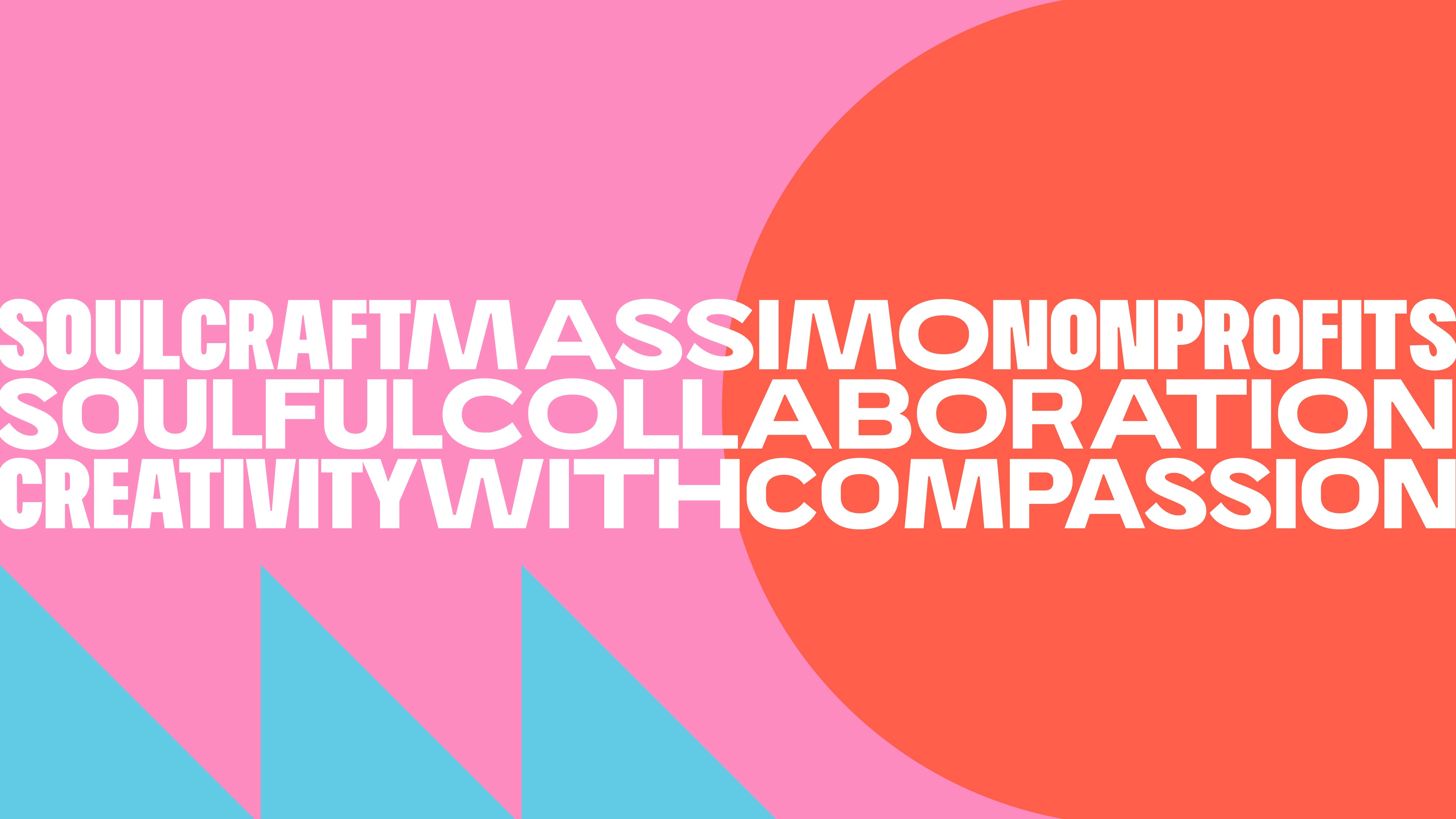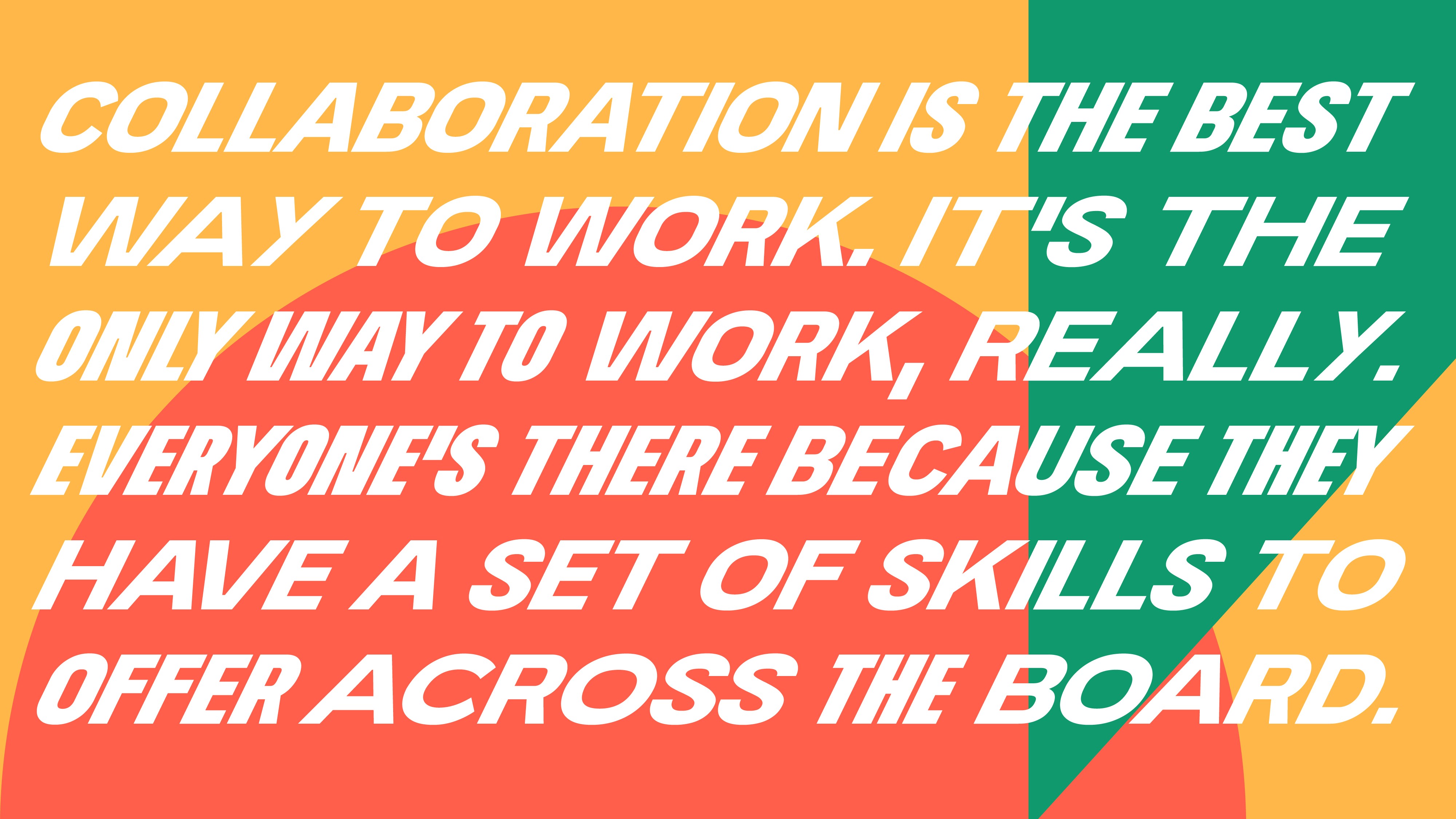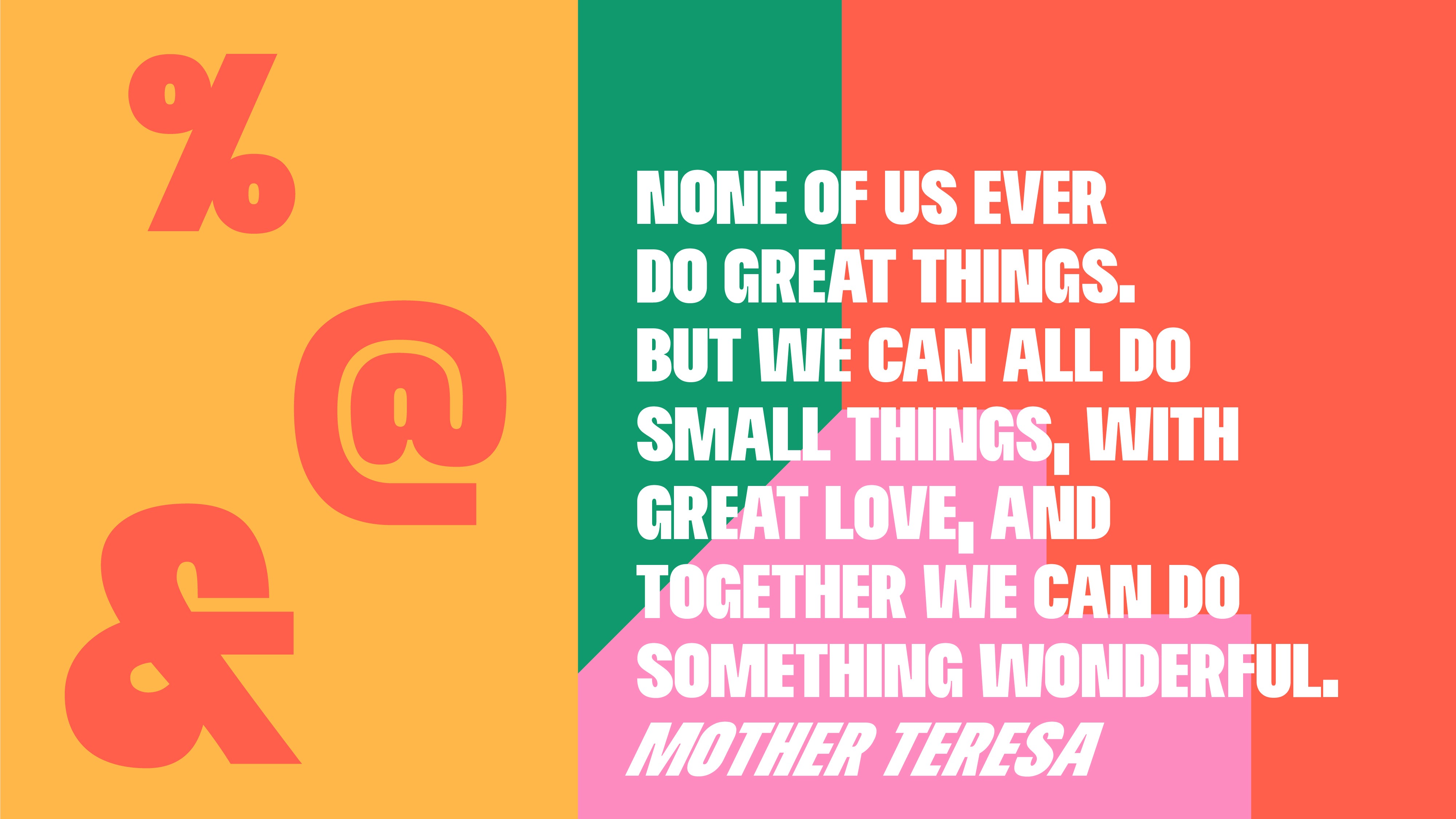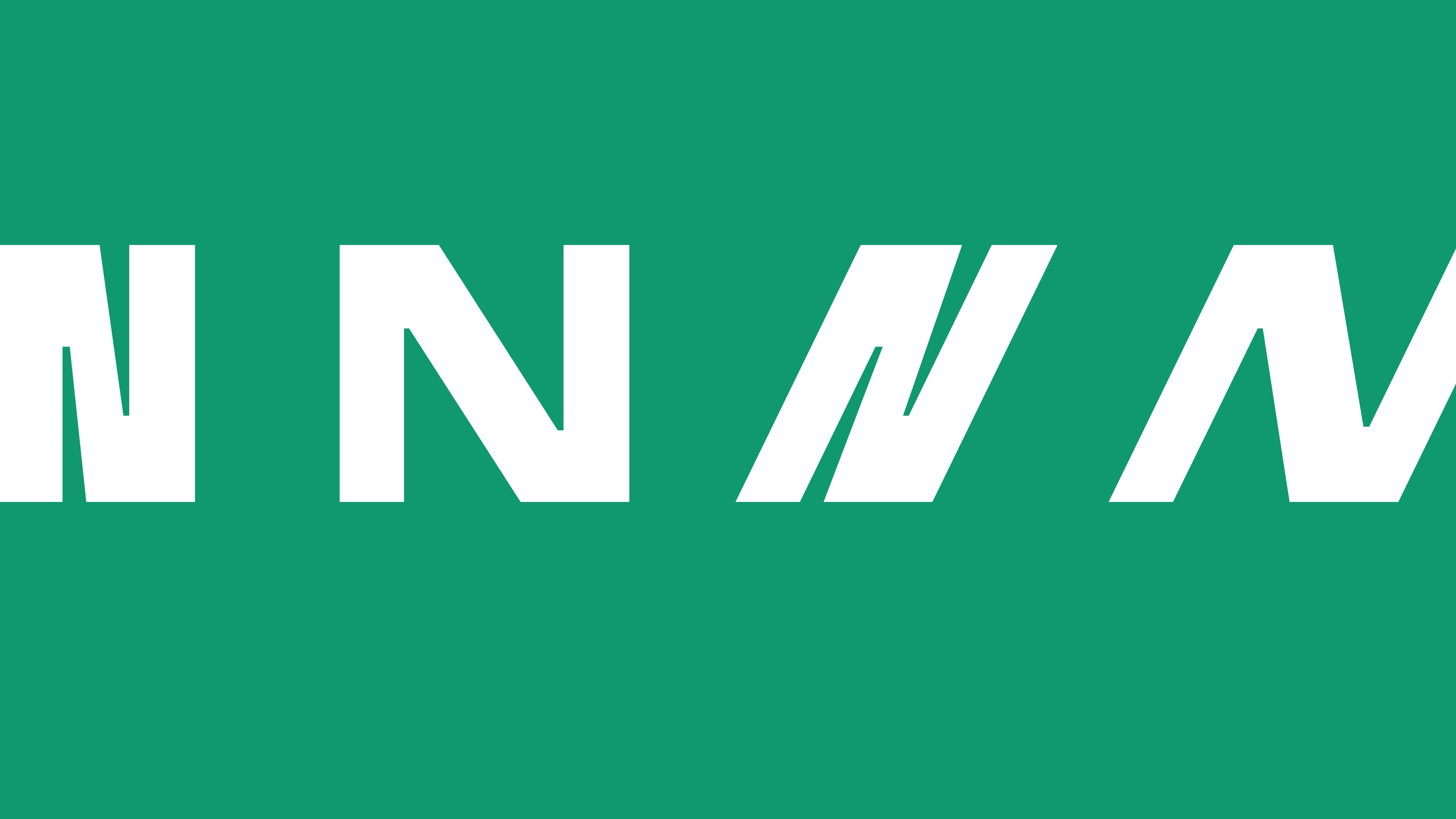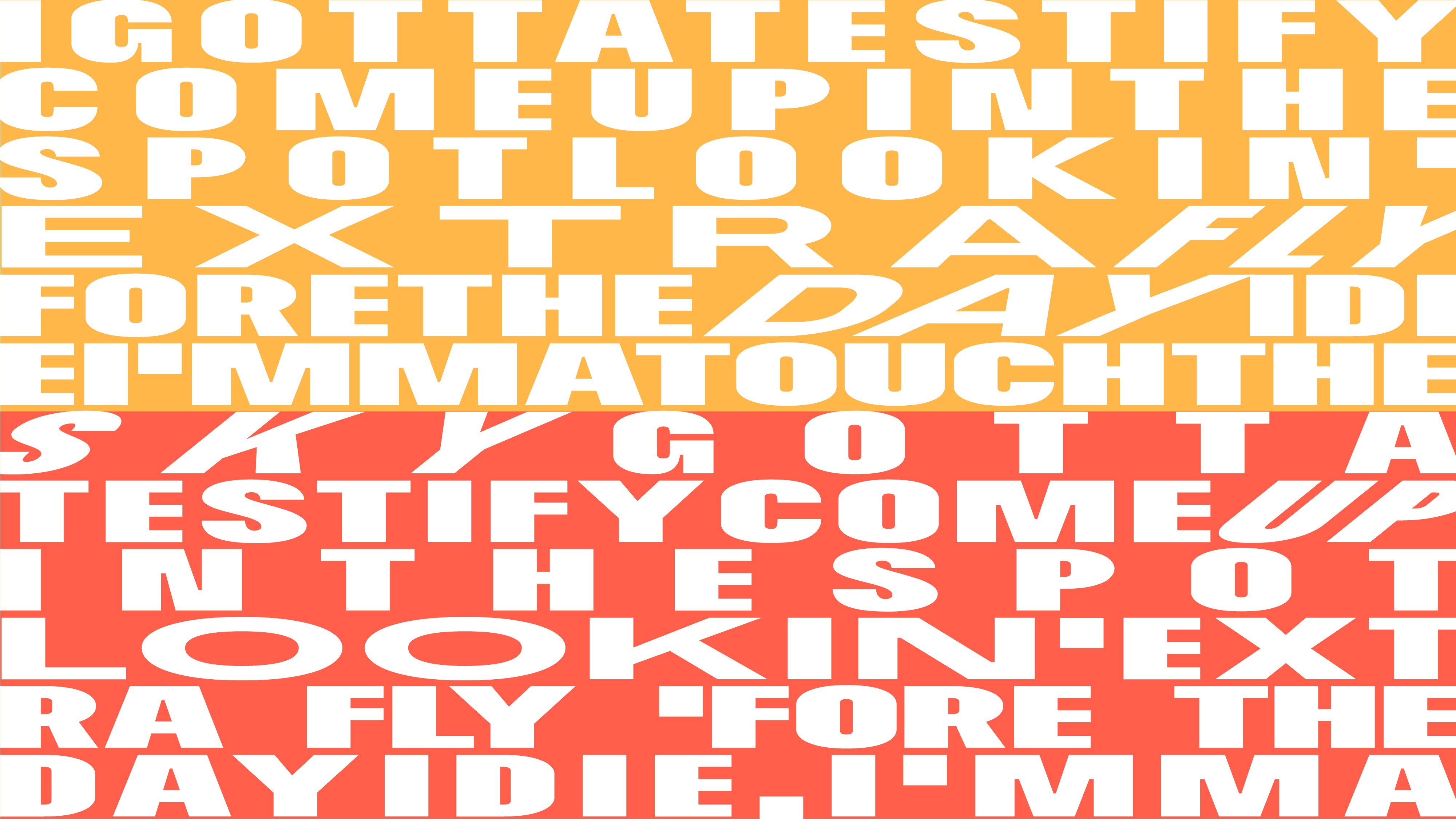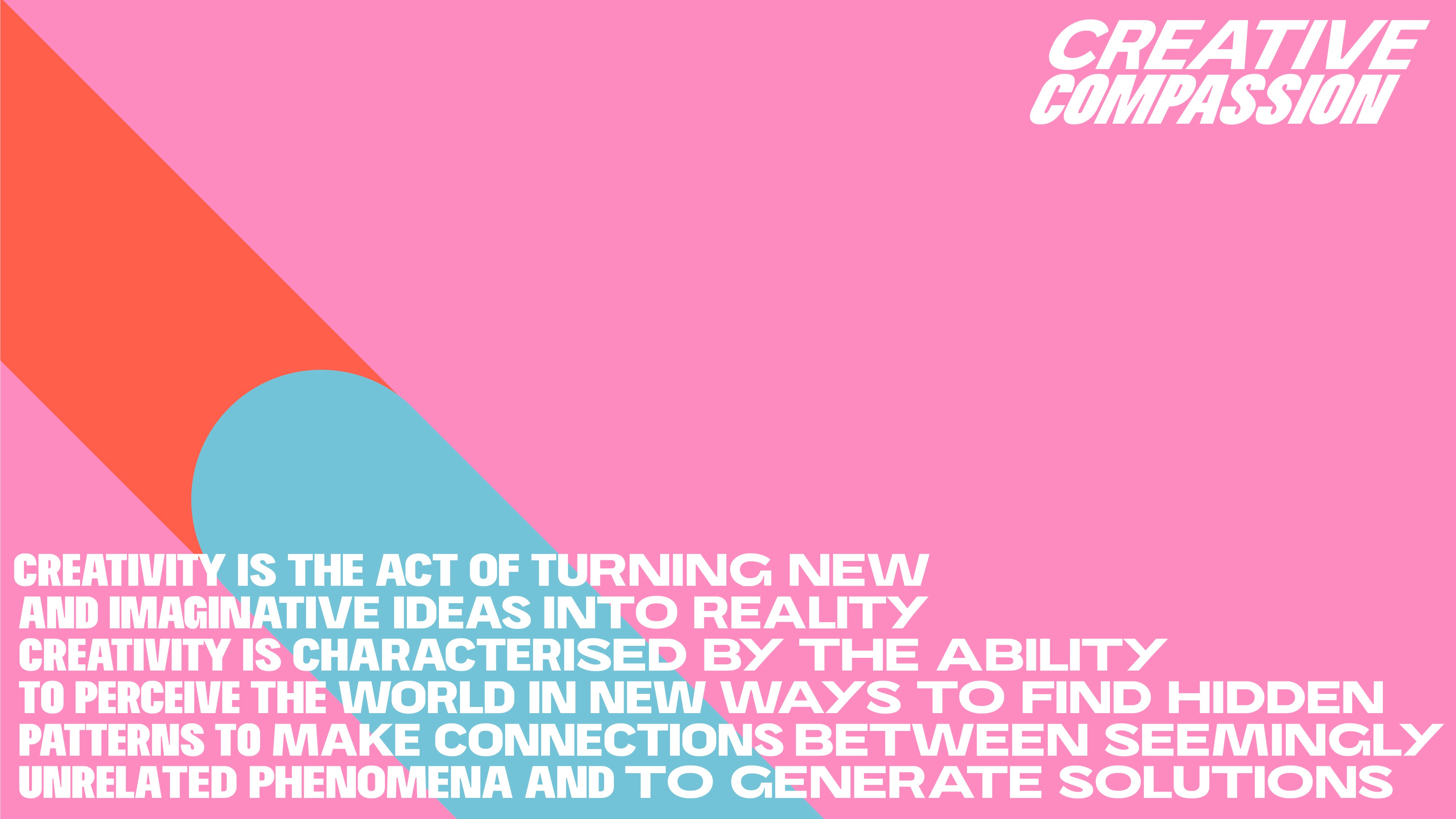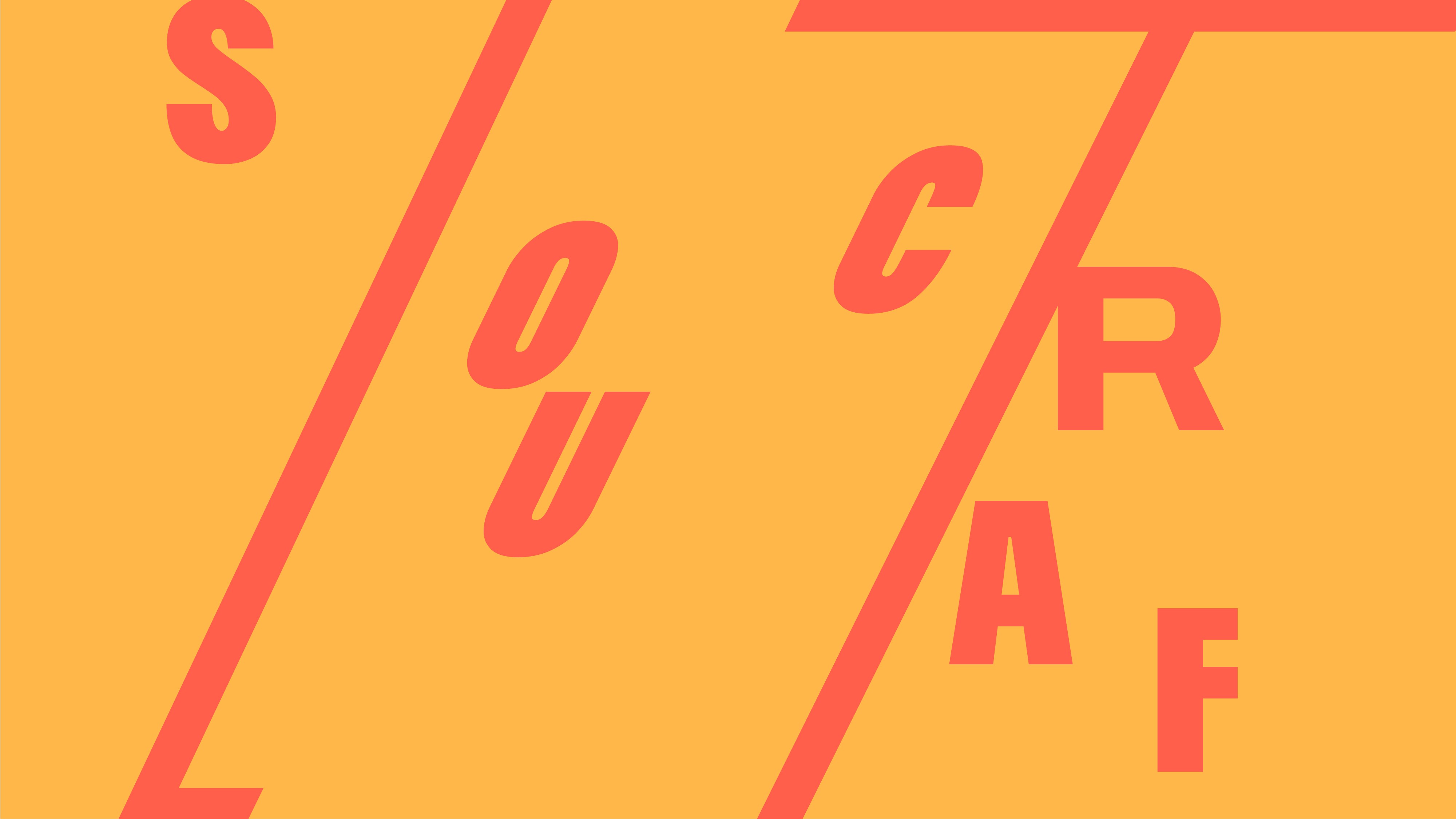
Soulcraft Typeface
Soulcraft typeface is a free OpenType variable font designed to emulate vernacular lettering. Since the font is an OTVar font, the user can change the width and slant of each character without relying on pre-defined font weights. This enables the replication of some quirky characteristics found in the drawing of sans-serif letters in street signs and walls, giving an energetic, unapologetic, and dynamic feeling to the compositions made with the font.
Our goal was to create a typeface to encourage all of us. Soulcraft is available to everyone for free, empowering creative people to use it in the most varied ways to express themselves in a bold, raw, and unafraid voice. By being variable, the font allows for the possibility of doing so many different kinds of work with a single file. It’s like having a toolbox in just one typeface.